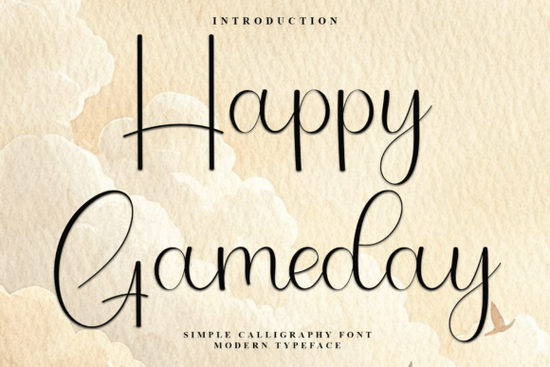
If you are looking for a typeface that feels like a handwritten note from a friend, the Happy Gameday Font is a solid choice for your next project. It brings a casual energy to designs without trying too hard. This font is particularly useful for creators who want their work to feel approachable and warm rather than stiff or corporate. Whether you are making a birthday invitation or designing a logo for a local bakery, this typeface helps set a friendly tone immediately.
The design features round, playful strokes that mimic the natural flow of a marker or pen. Because it avoids sharp edges, it reads easily even at smaller sizes, which is crucial for social media graphics or product labels. The hand-drawn aesthetic adds a human touch that automated text often lacks, making your brand feel more personal to your audience.
What kind of projects work best with this style?
Because of its relaxed nature, this font shines in contexts where you want to evoke happiness or nostalgia. It is not the right choice for a legal document or a serious financial report, but it excels in creative and lifestyle niches. Here are a few specific ways you can apply it:
- Print on Demand: It works wonderfully on t-shirts, mugs, and tote bags, especially for designs targeting parents, teachers, or sports teams.
- Event Stationery: Use it for baby shower invites, birthday banners, or welcome signs where a cheerful vibe is needed.
- Social Media: Overlay this text on Instagram stories or Pinterest pins to highlight key quotes or announcements.
- Packaging: Small businesses can use it on thank-you cards included in orders to add a personal signature feel.
Is it easy to use in design software?
One of the most frustrating things for designers is downloading a font only to find that special characters or ligatures are missing. Fortunately, this font is equipped with standard PUA (Private Use Area) Encoded glyphs. This technical feature ensures that all the unique characters and alternate letters are accessible across different platforms.
How should you pair it with other typography?
While this font stands well on its own for short headlines, longer bodies of text require a different approach. A rounded, casual script like this needs a clean sans-serif or a simple serif to balance it out. If you use it for a headline, try pairing it with a minimal font for the subtext to keep the design readable.